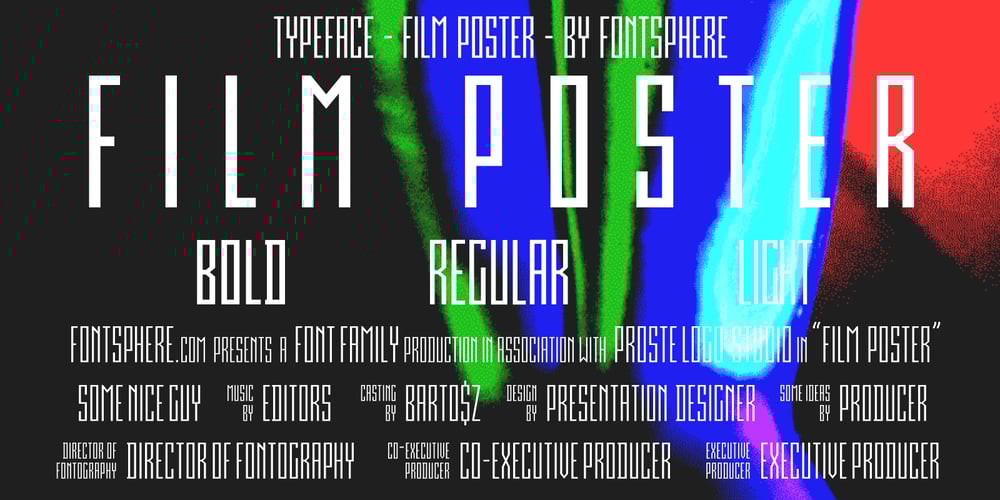
Film Poster
Film Poster font
Film Poster Font Family was designed by Bartosz Panek and published by Fontsphere. Film Poster contains 9 styles and family package options. Film Poster is an ultra condensed sans serif display typeface with geometric forms. It can be used in many creative ways, all kinds of graphics, posters, advertising materials, text composition. It fits perfectly for the film industry as well as many other fields. Font include multilingual support (Latin-1), uppercase and lowercase letters, numerals and a large range of punctuation.